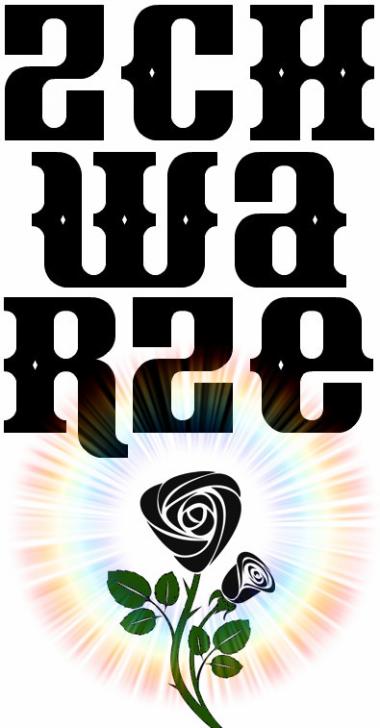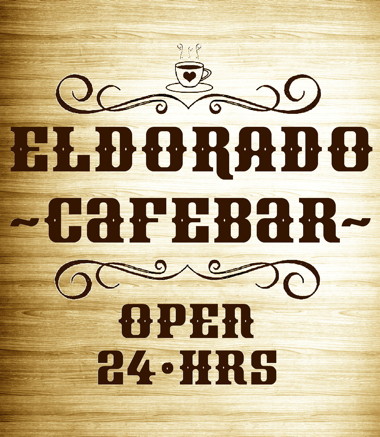
zchwarze eYe/FS
Some alternates are at the lowercase, to make different glyphs (a, e, f, G, J, K, R...) or to improve the kern (A, L, Y...). Try it, please.
Wild West
Unicase
A strong design, with those delicate diamond details. It also has a hint of Cyrillic about it.
Western style...
Beautiful typeface and beautiful sample!
Gotta love that 4! 10/10
An effective combination of sturdy letterforms and subtle diamonds!
Nice work. With some tweaks you could make an inline version too. 10/10
An excellent very usable design.